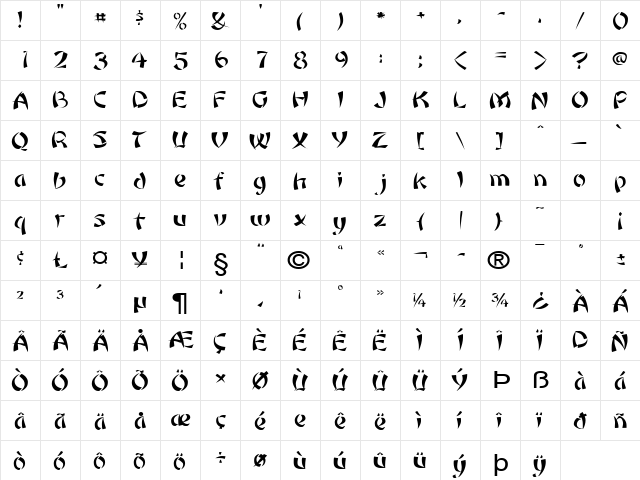
Orient1-Extended Normal
Design Context for Orient1-Extended Typeface
Orient1-Extended is a composed and adaptable typeface that performs quietly and consistently across a wide range of design contexts.